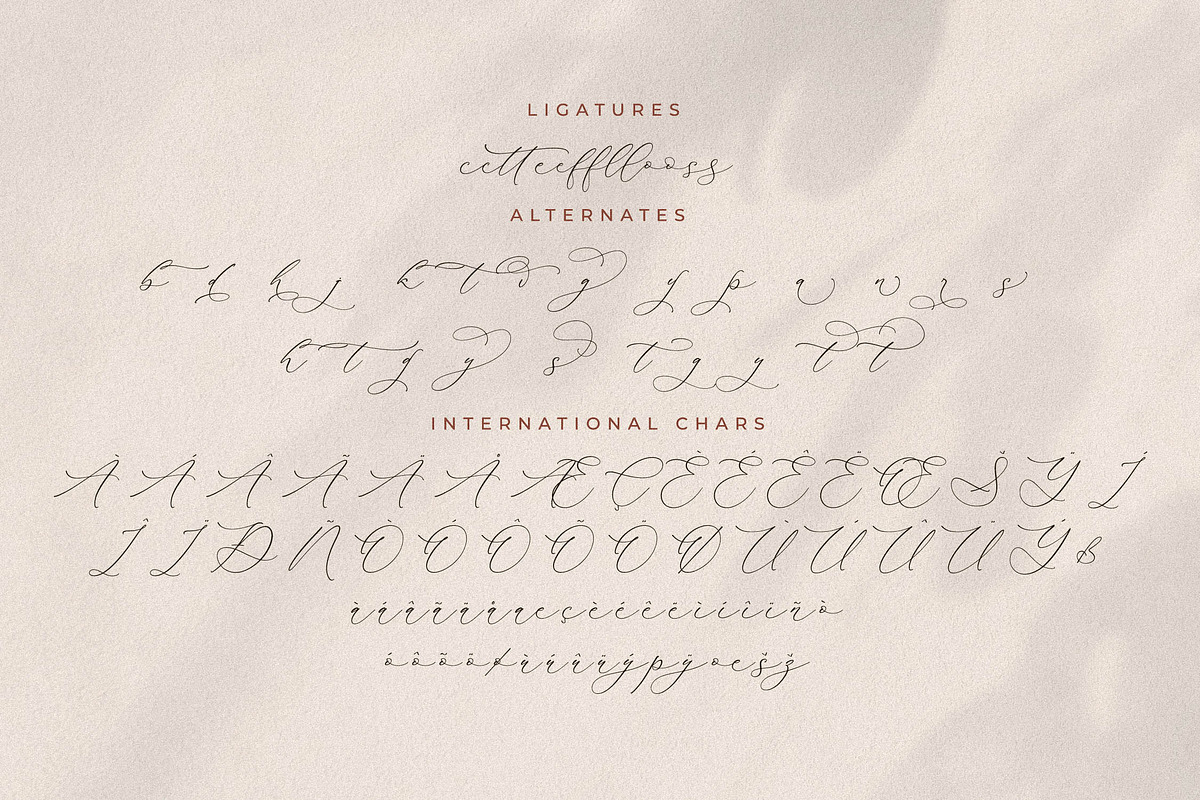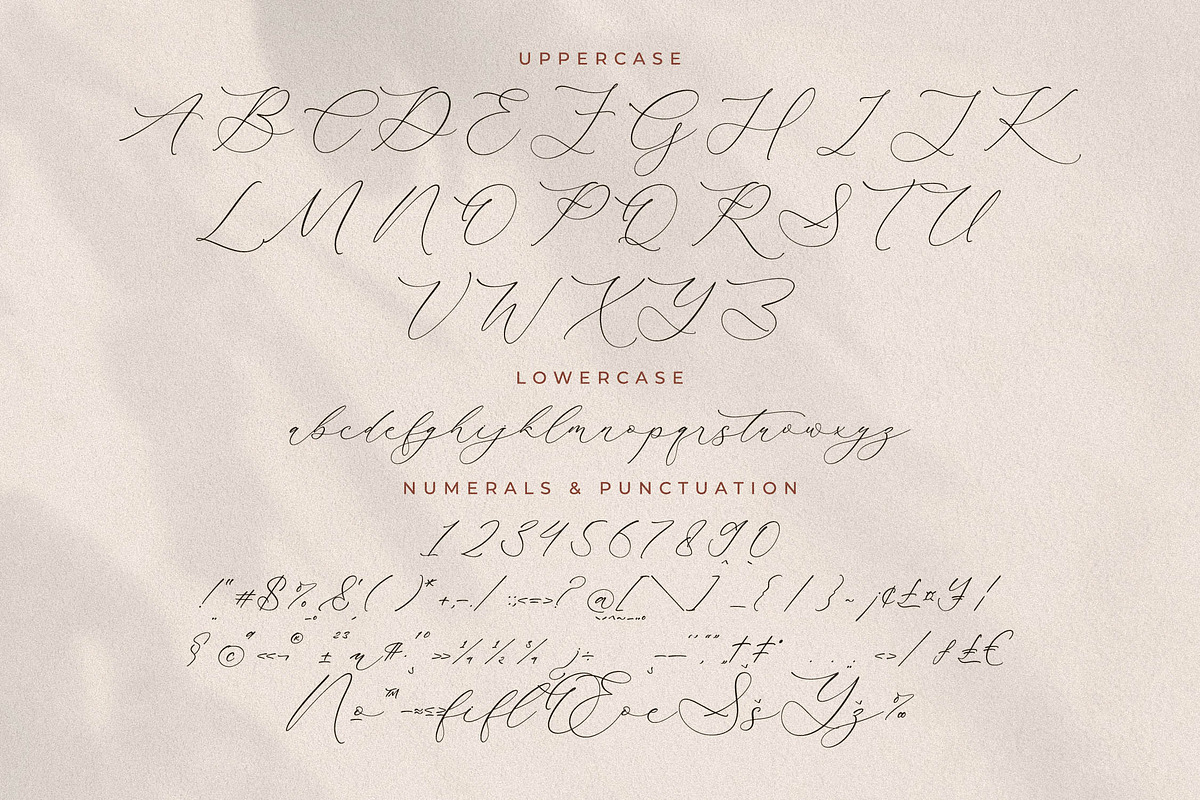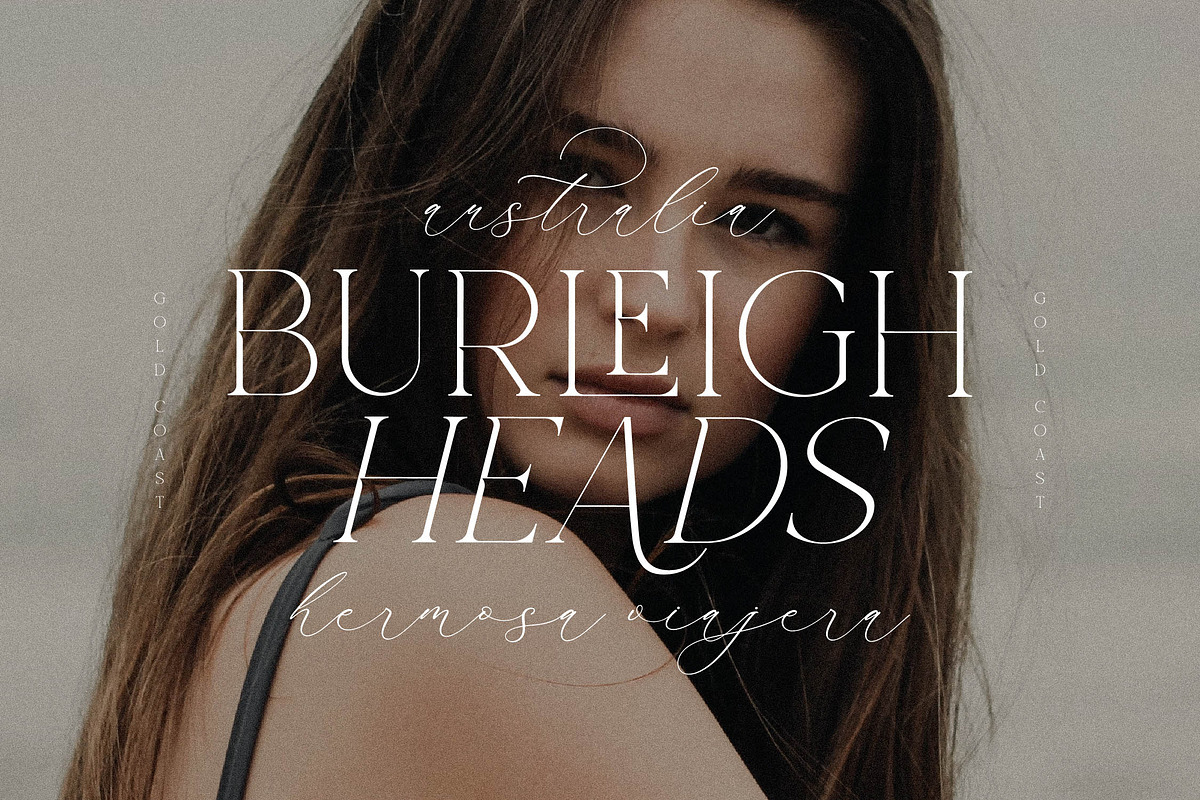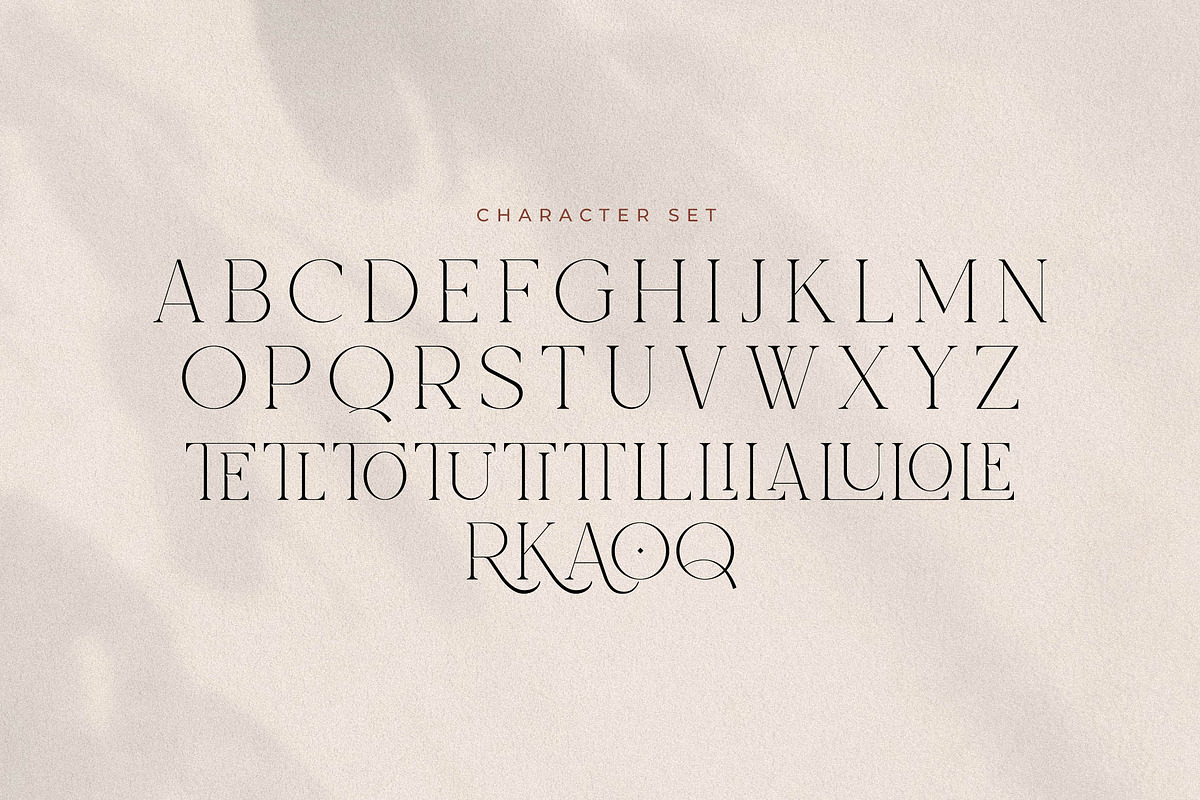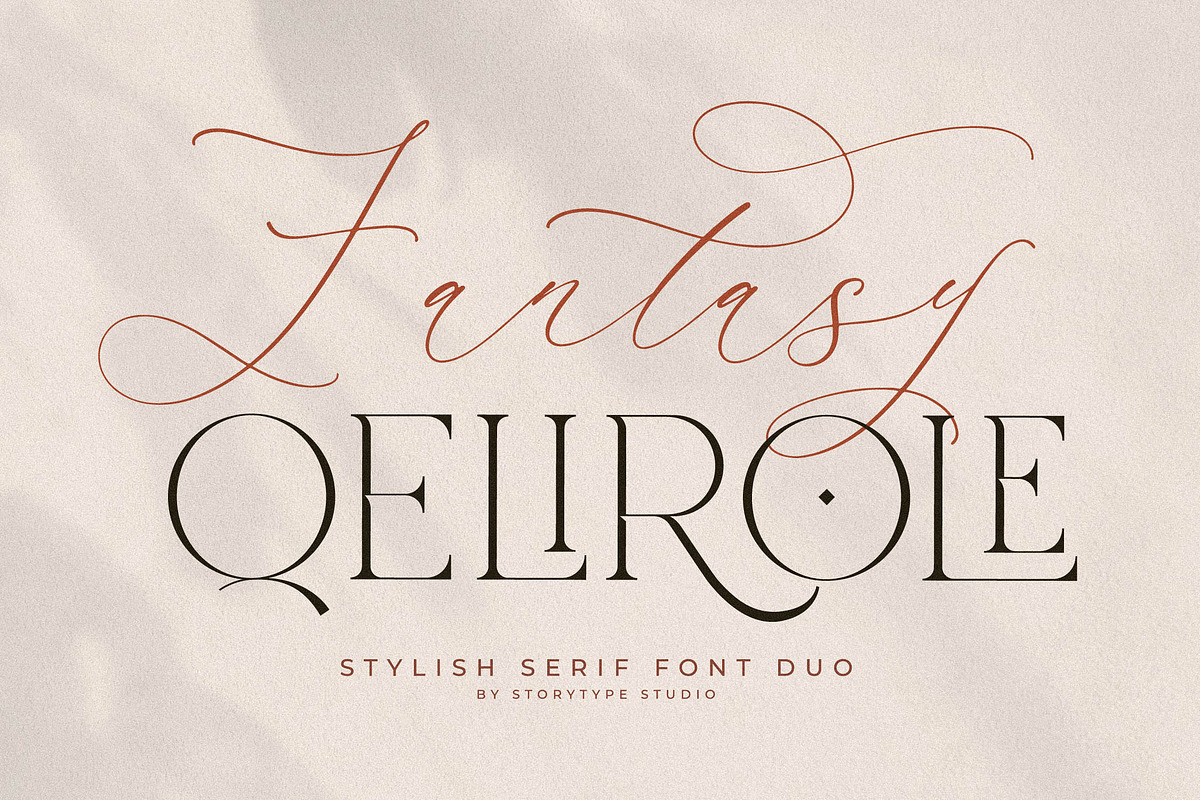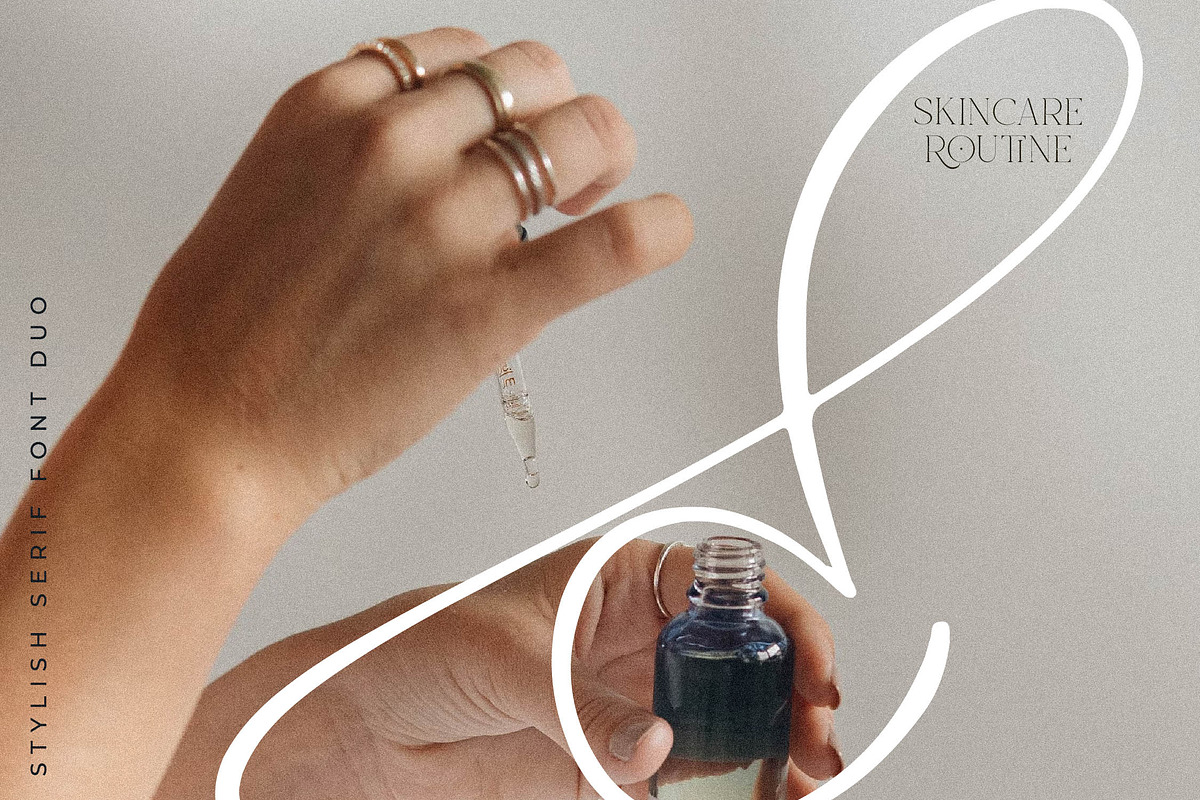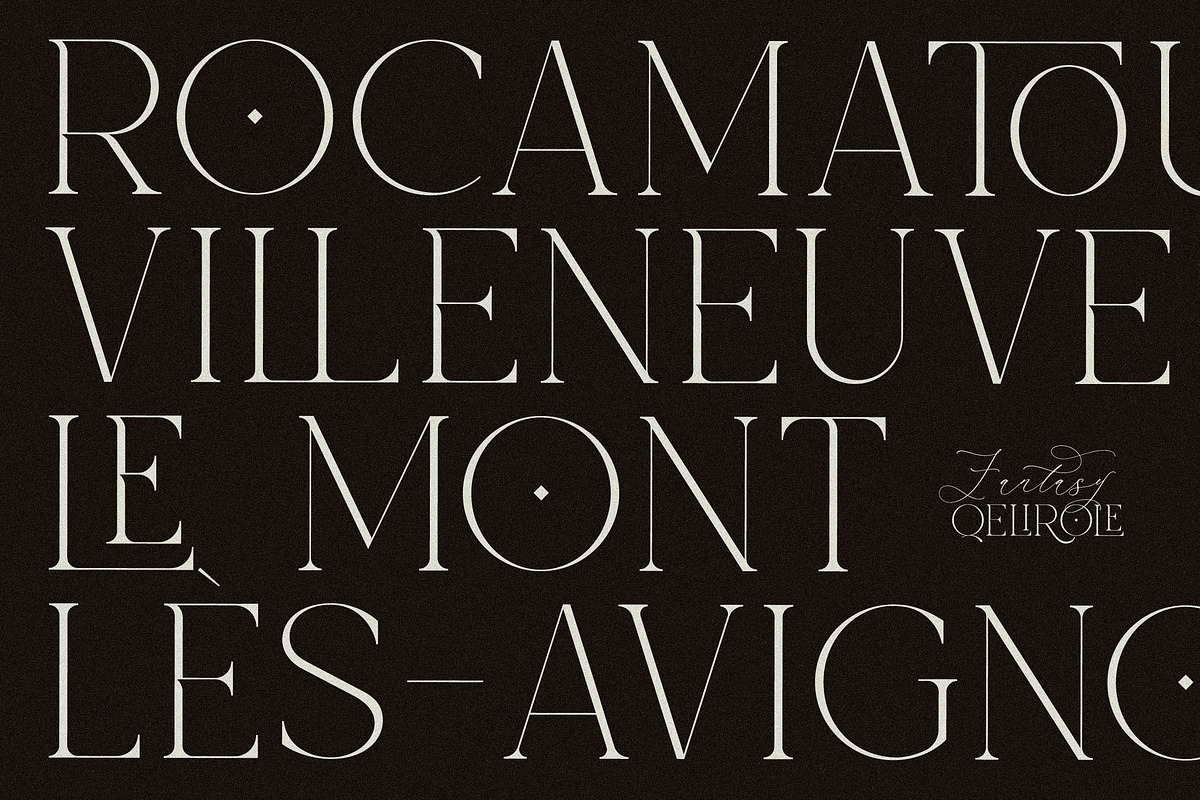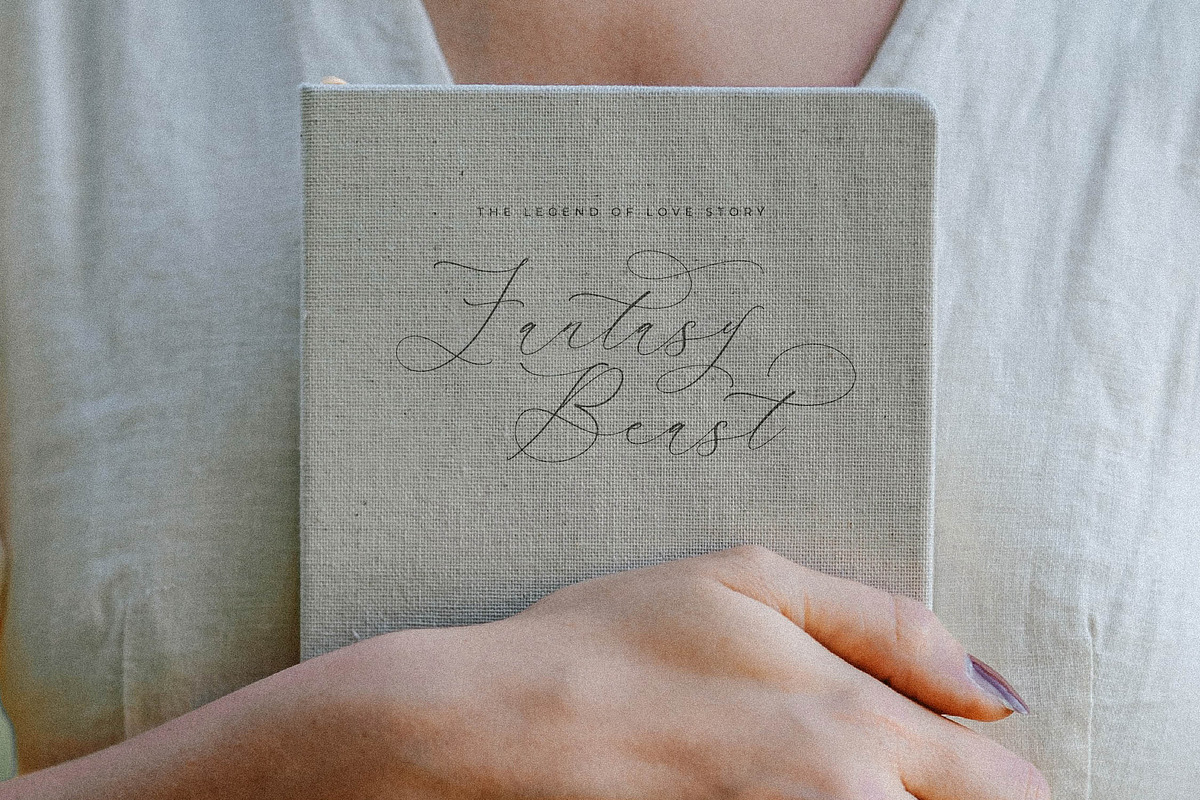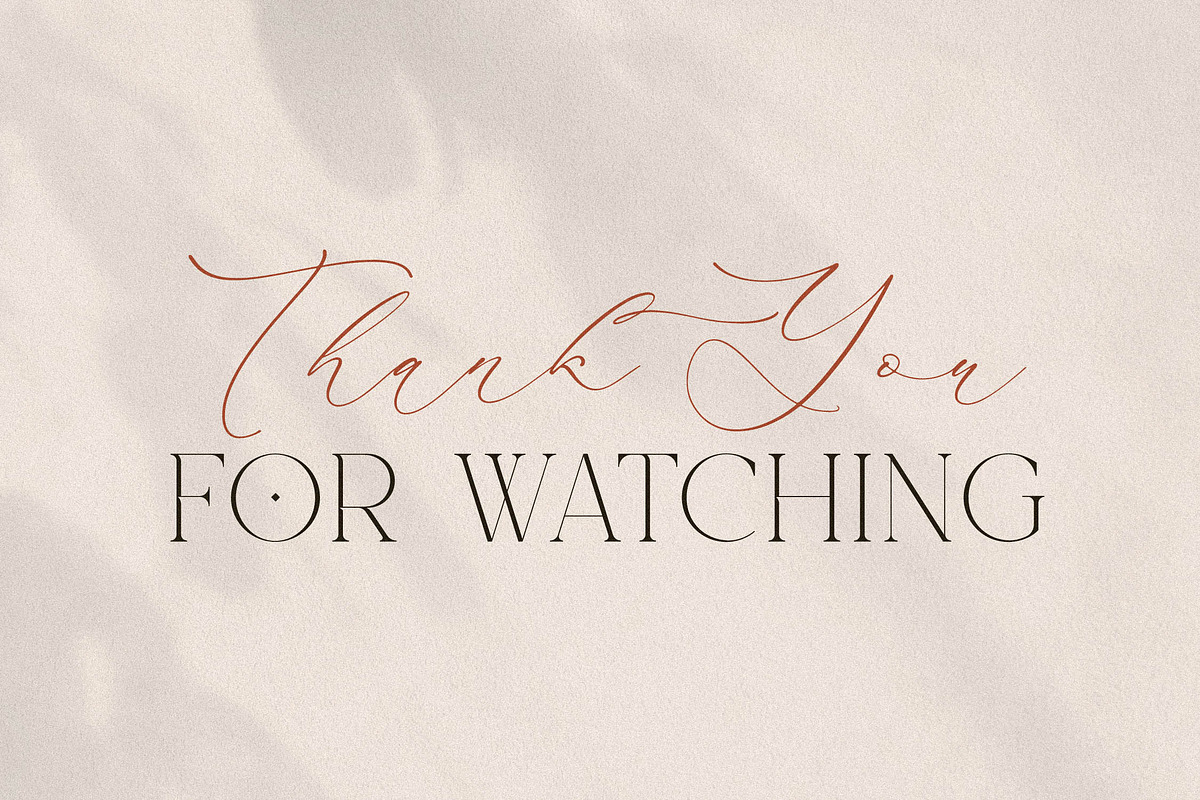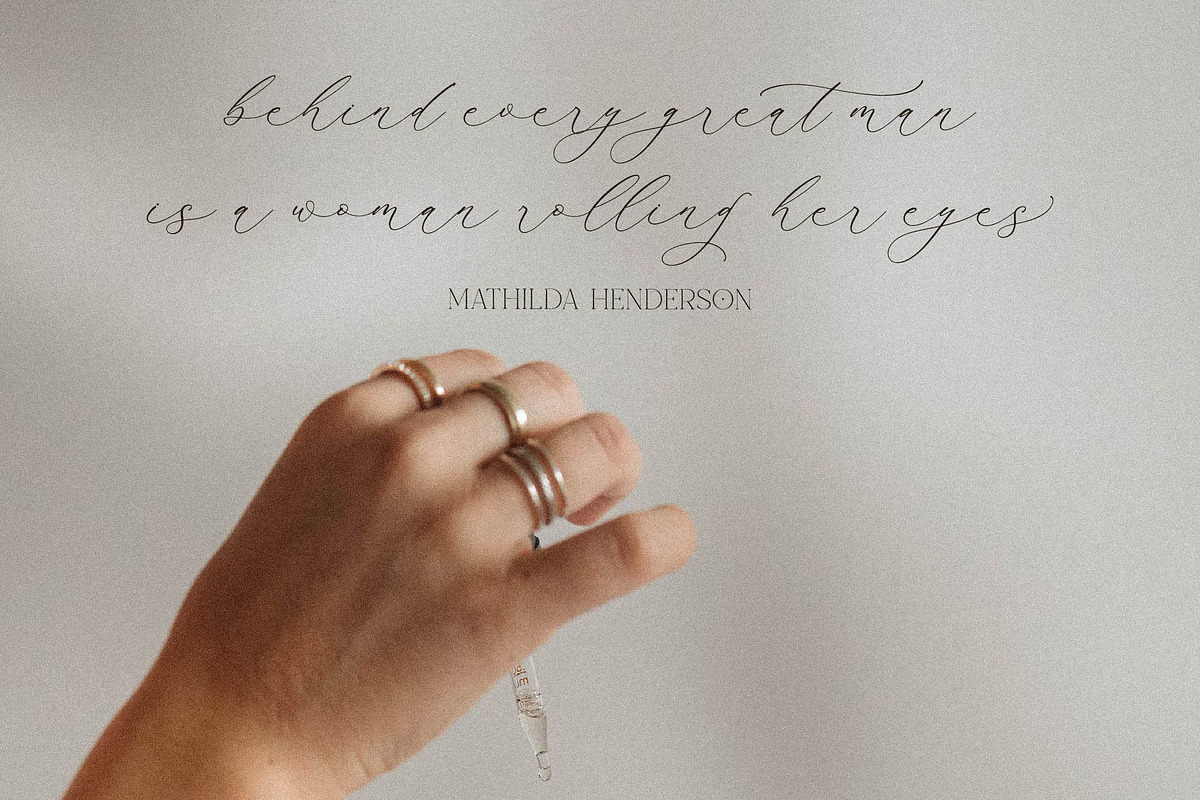
Fantasy Qelirole Stylish Font Duo
Proudly present Fantasy Qelirole Stylish Font Duo , created by Storytype, A serif modern and classic typeface that has own unique style & modern look. This typeface is perfect for an elegant & luxury logo, book or movie title design, fashion brand, magazine, clothes, lettering, quotes, and so much more.